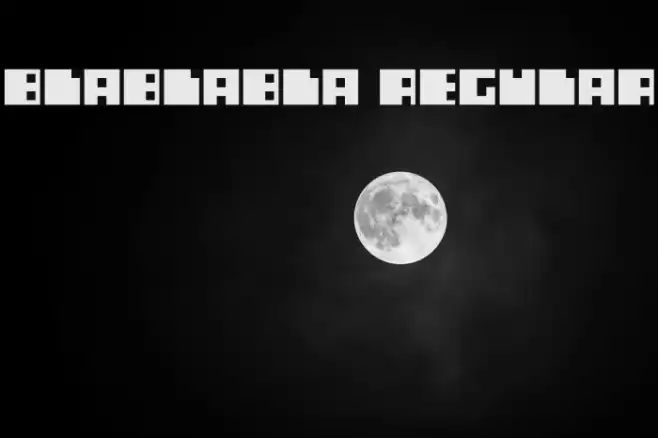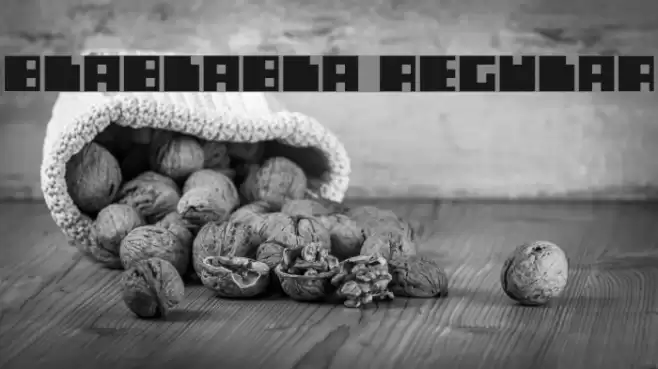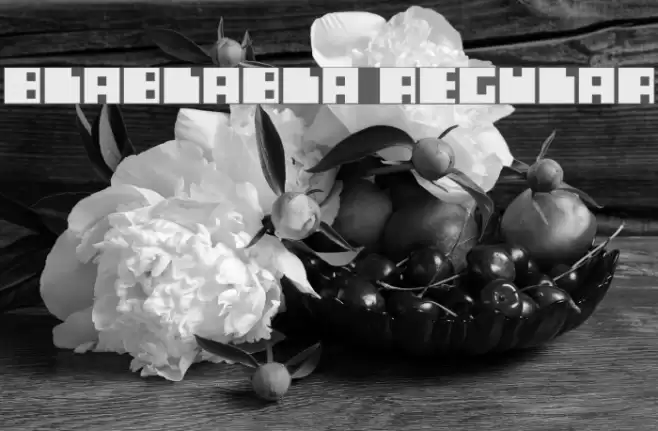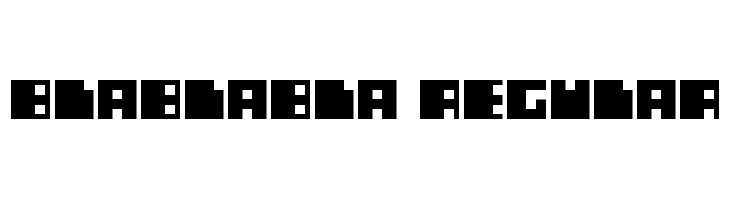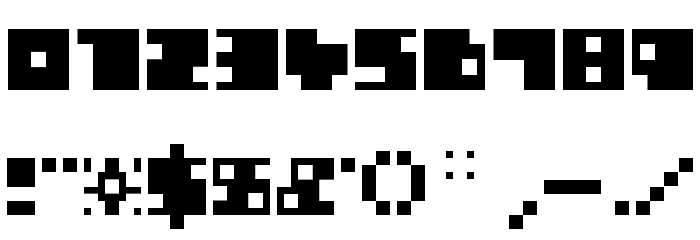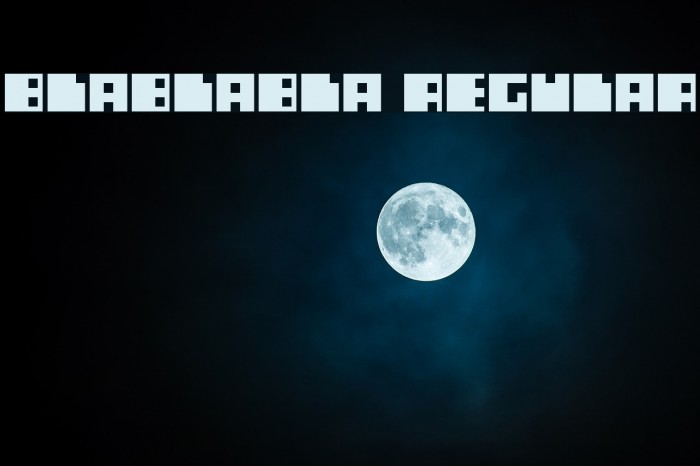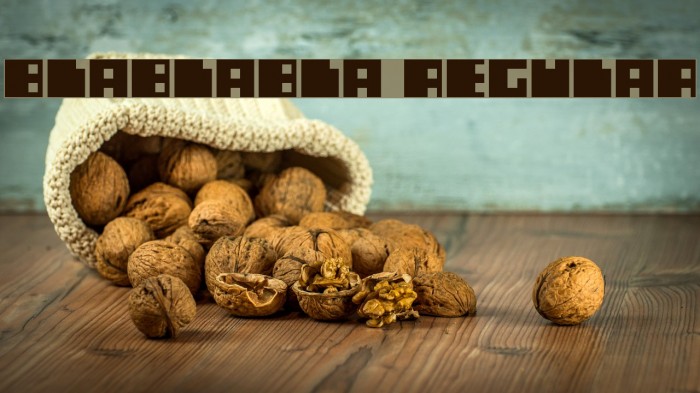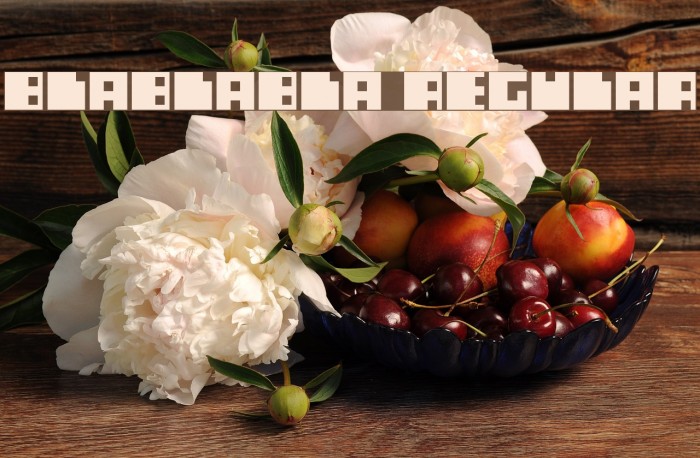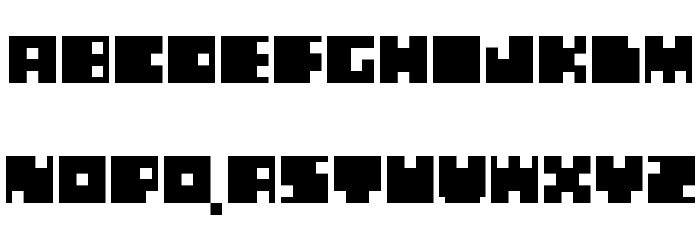
blablabla Regular Font
blablabla Regular Description
This font features a bold, blocky design with a pixelated aesthetic reminiscent of early digital displays and video games. Each character is constructed with a uniform grid-like structure, giving it a distinctly retro and geometric appearance. The uppercase and lowercase letters maintain consistent proportions, while the numerals and special characters follow the same pixelated style, ensuring uniformity across all glyphs. The font's strong, angular lines and lack of curves contribute to its digital and futuristic feel, making it stand out in any design project.
- Proposed Projects: Ideal for video game design, retro-themed posters, digital art projects, and any creative work seeking a nostalgic or tech-inspired look.
- Overall Style: Retro, Digital